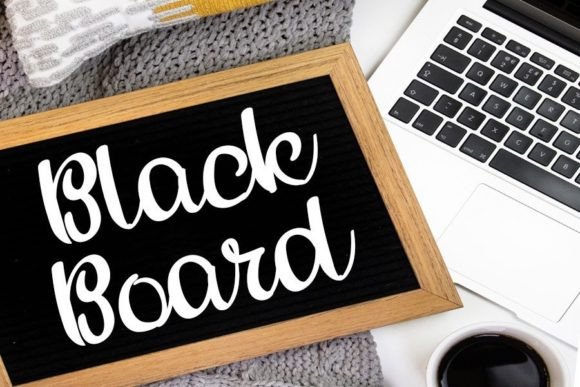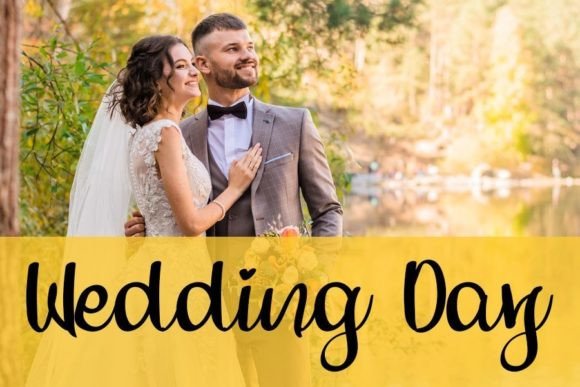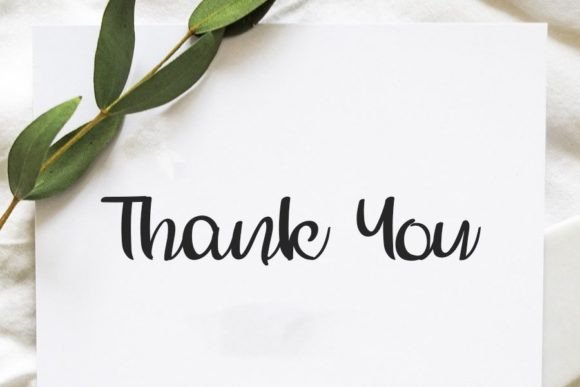
The Birth of a Beautiful Font: A Designer’s Delight
I’ll never forget the time I was working on a project for a client’s birthday party invitation. I had all the design elements ready, but I was stuck on finding the perfect font. I wanted something that would convey the joy and sweetness of the occasion. That’s when I stumbled upon the Birthday Font. It was love at first sight! ✨
A Romantic Handwritten Font
The Birthday Font is a romantic handwritten font that exudes joy and sweetness. Its elegant and flowing script makes it perfect for a variety of design ideas, from party invitations to greeting cards. What I love most about this font is its lovely heart ornaments, which add a touch of whimsy and playfulness to any design.
• ✨ Elegant and flowing script
• ✅ Lovely heart ornaments
• 🎉 Perfect for party invitations and greeting cards
• 💕 Romantic and whimsical feel
While the Birthday Font is a beautiful font, there are a few things to keep in mind. 🤔 For example, some of the letters may not be suitable for use in body text, as they can be quite ornate. ⚠️ Additionally, the font may not work well with certain design elements, such as bold colors or busy patterns.
The Designer Inspiration Behind the Birthday Font
The Birthday Font was designed with love and care by a talented typographer. The designer’s inspiration came from traditional handwritten scripts, with a modern twist. The result is a beautiful and unique font that’s perfect for any design project.
Font Name Birthday Font
Author Snowman Studio
Q: What is the Birthday Font?
A: The Birthday Font is a romantic handwritten font that’s perfect for party invitations, greeting cards, and more.